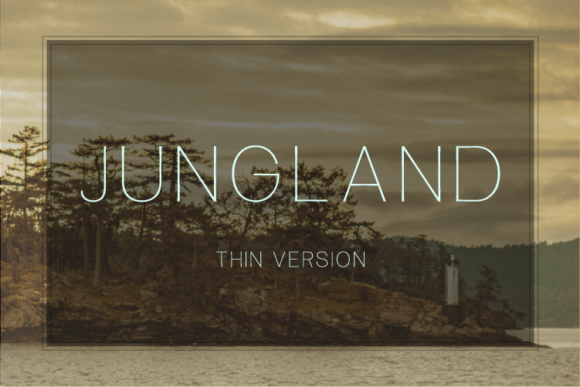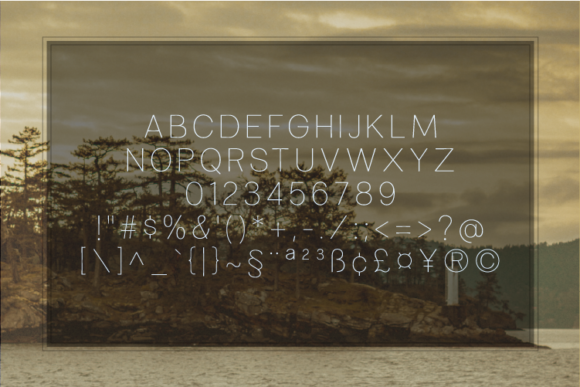
HomeSans Serif FontsJungland Thin Font Sans Serif Fonts Jungland Thin Font FacebookXPinterestWhatsApp Jungland Thin Fonts 1 of 2 About Jungland Thin Font Jungland is a geometric font family with a warm, engaging style. Inviting and versatile, Jungland’s subtle imperfections and human tone make it great for headlines, quotes, and short text. DOWNLOAD NOW People also explored Rugdish Font Gishella Font Brahman Font Beautyle Font Baweni Font Yoyo Handmade Font Among Us Font Chirota Font 346 0 TagsJungland Thin Font Previous articlePashalovia FontNext articleWincent Extra Black Font LEAVE A REPLY Cancel reply Comment: Please enter your comment! Name:* Please enter your name here Email:* You have entered an incorrect email address! Please enter your email address here Website: Save my name, email, and website in this browser for the next time I comment. Personal Use Free Wanita Cantik Personal Use Free Read more about this font Waverly Date Personal Use Free Read more about this font Pouline Personal Use Free Read more about this font Special Day Personal Use Free Read more about this font BLOG How to Cut Any Font on Cricut: Convert a Font to SVG (Free) Turn any font into a clean SVG so it cuts crisp on Cricut - a quick 3-step workflow using a free font-to-SVG tool. Top 7 Google Fonts Alternatives for Faster and Privacy-Friendly Web Design (2025) Best Fonts for T-Shirt Design – Top 2025 Picks How to Install and Use Fonts on Windows, macOS, and Web Projects